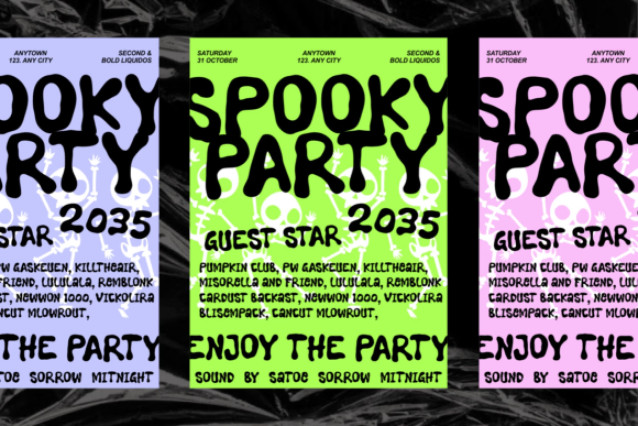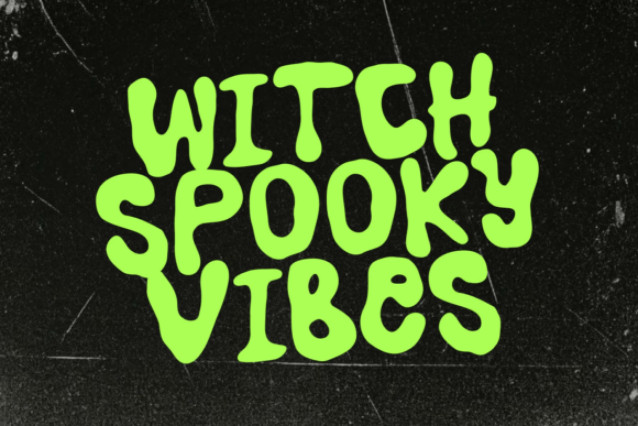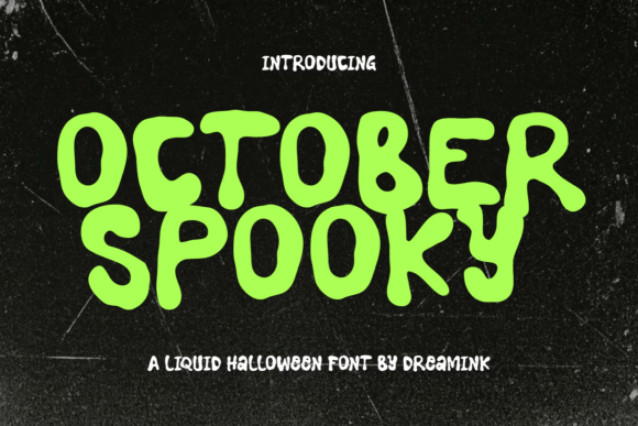
Step into the eerie spirit of Halloween with October Spooky, a bold liquid display font inspired by dripping slime, spooky creatures, and haunted nights. Its soft, melting letterforms create the perfect balance between creepy and playful, making every design feel fun, eye-catching, and full of Halloween charm.
With its chunky, organic shapes and gooey aesthetic, October Spooky brings a magical haunted vibe to every project while remaining highly readable and versatile for both digital and print designs.